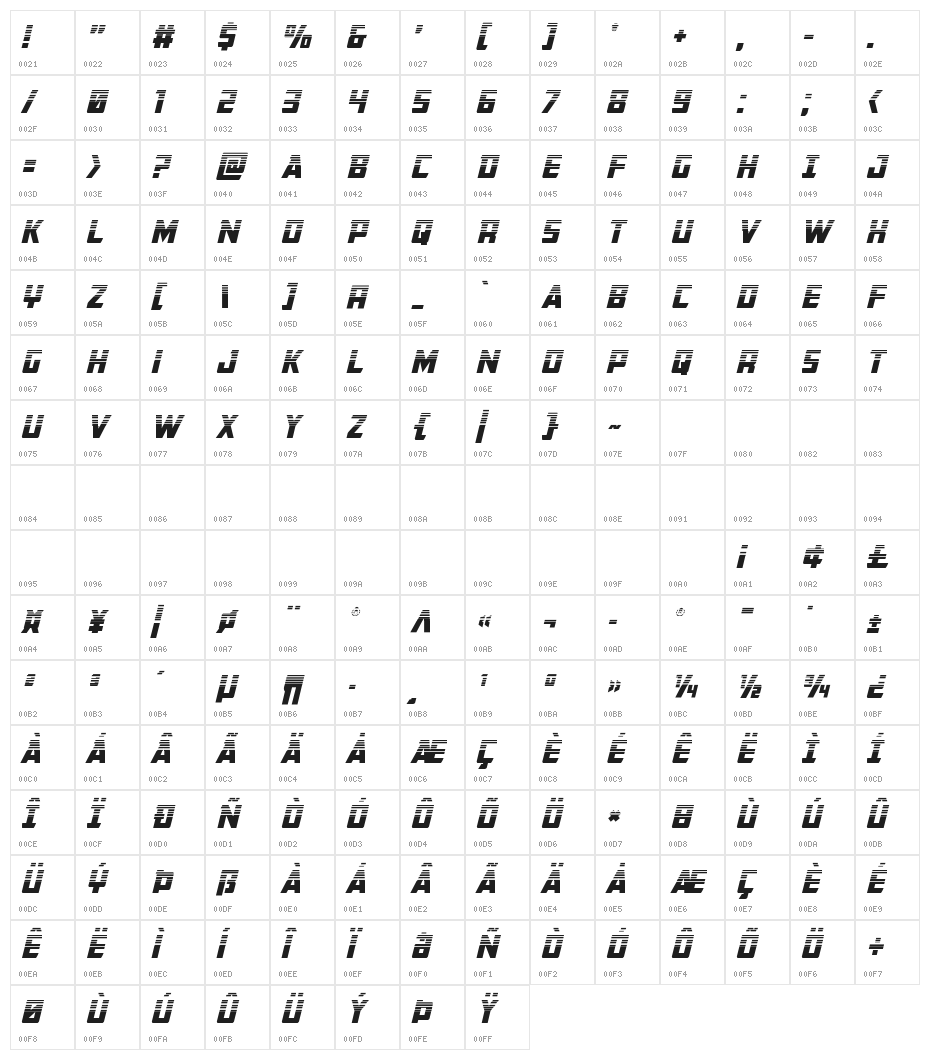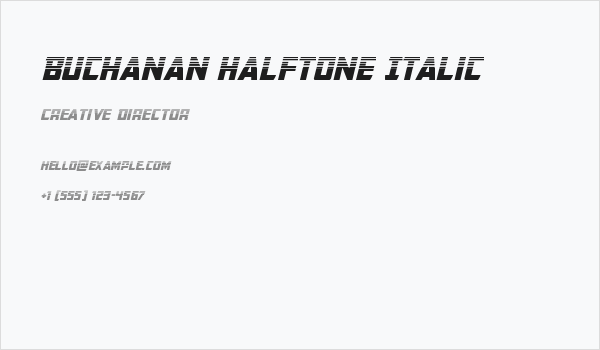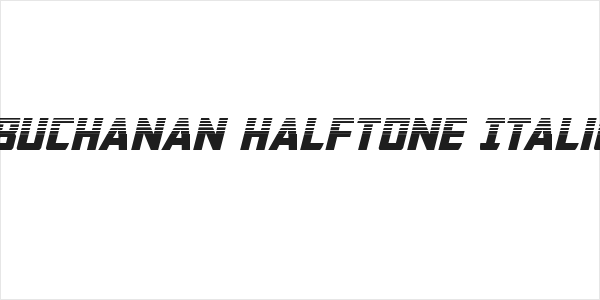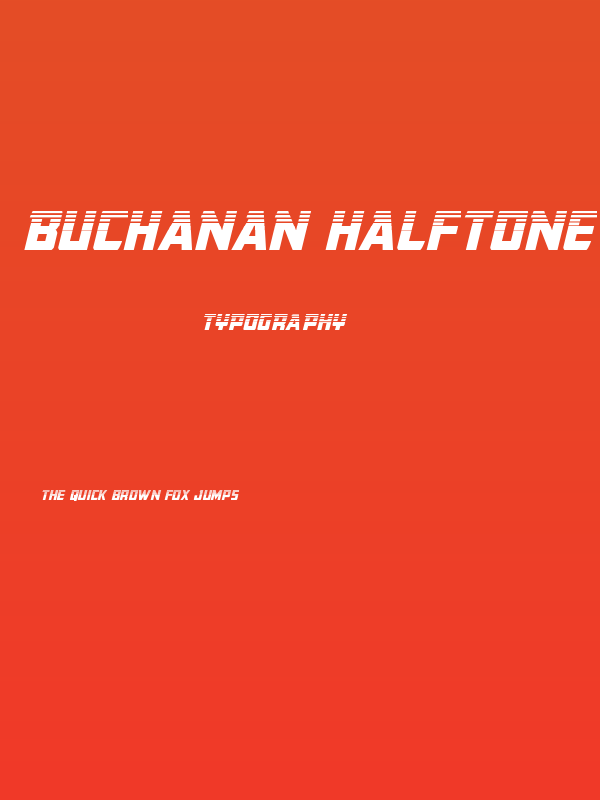
Buchanan Halftone Italic Font
Buchanan Halftone Italic Description
This font features a bold, italicized style with a distinct halftone effect that gives it a dynamic and modern appearance. The uppercase and lowercase letters are designed with a strong geometric structure, characterized by sharp angles and a consistent slant. The numbers and special characters maintain this aesthetic, ensuring a cohesive look across all glyphs. The halftone pattern adds a unique texture, making the font stand out in any design. Its bold presence and italic slant suggest movement and energy, making it suitable for impactful headlines and eye-catching designs.